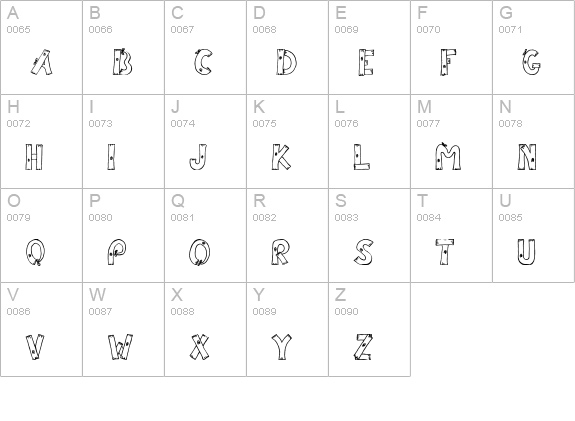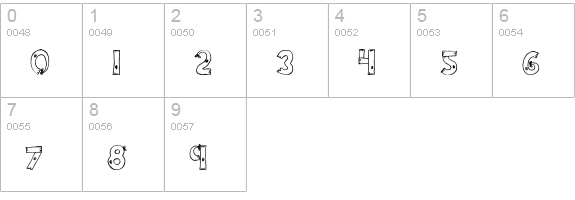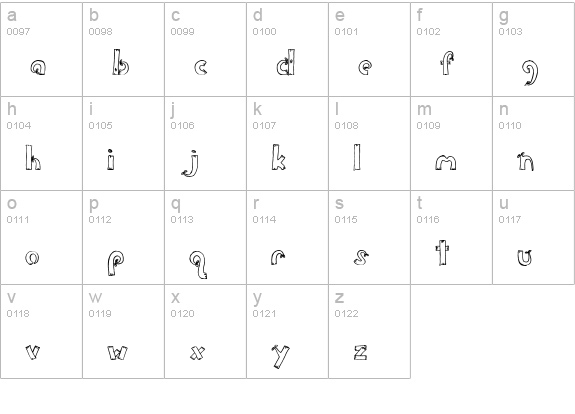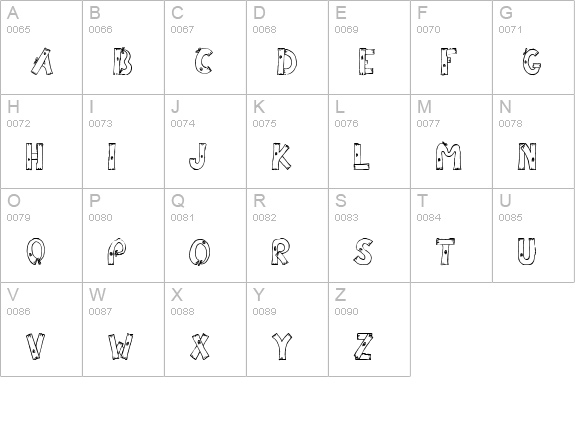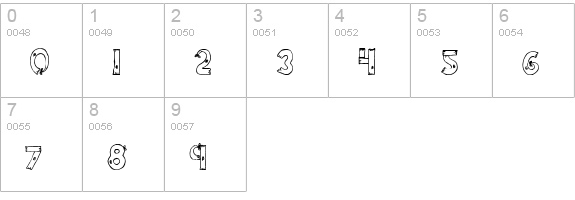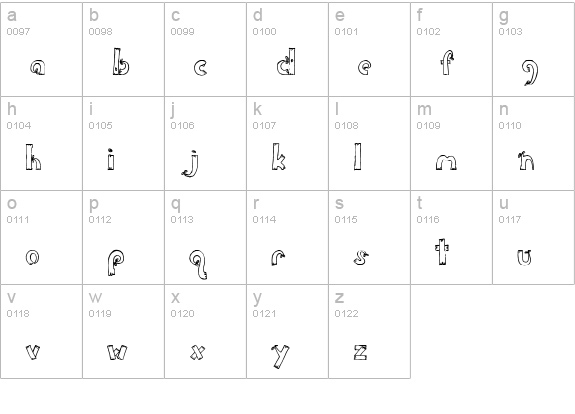
CK Woodsy Font Details
Introducing CK Woodsy font, a charming and rustic typeface perfect for adding a touch of nature to your designs. This versatile font features a handcrafted look with unique tree-inspired elements that evoke a sense of the great outdoors. CK Woodsy is ideal for projects related to camping, hiking, nature, or any design that calls for a natural and organic feel. Best of all, CK Woodsy font is completely free to use and is available for download at FontsMarket.com. Whether you're working on a logo, poster, or website, this font will bring a touch of wilderness to your creations. Embrace the beauty of the forest with CK Woodsy font and let your designs stand out with its distinctive and whimsical style.